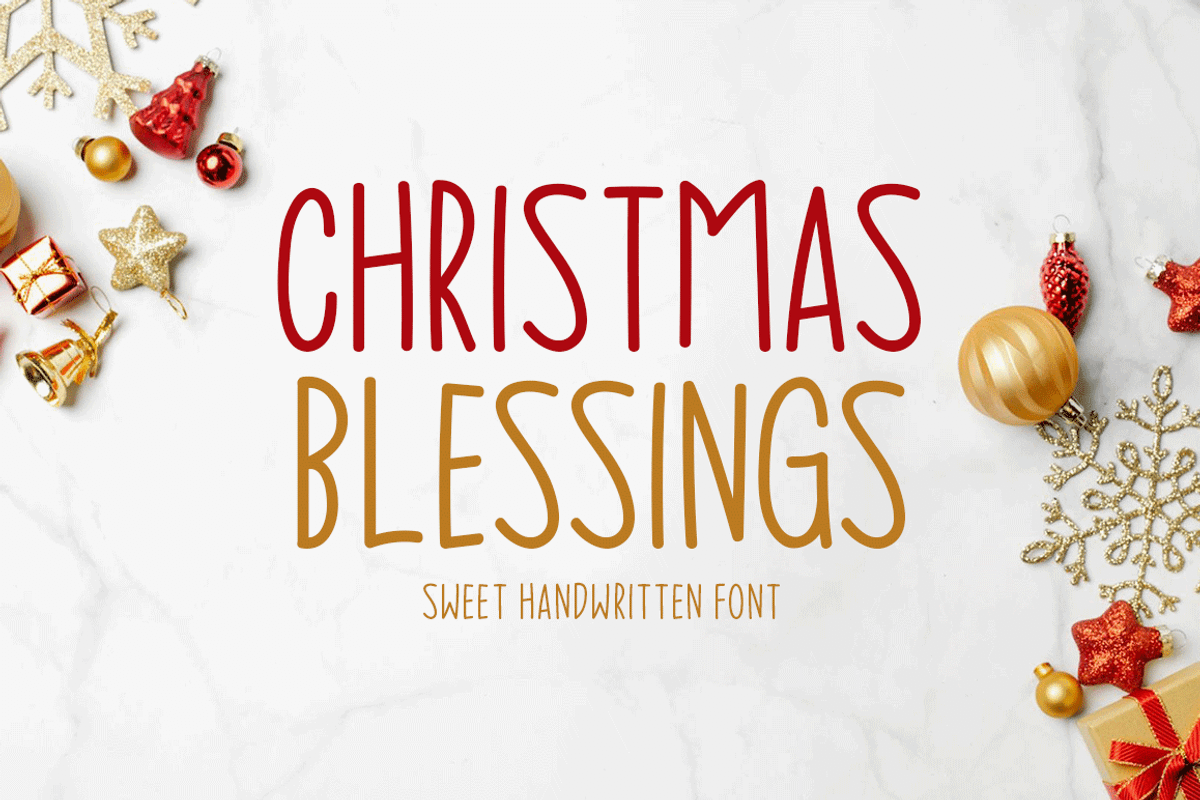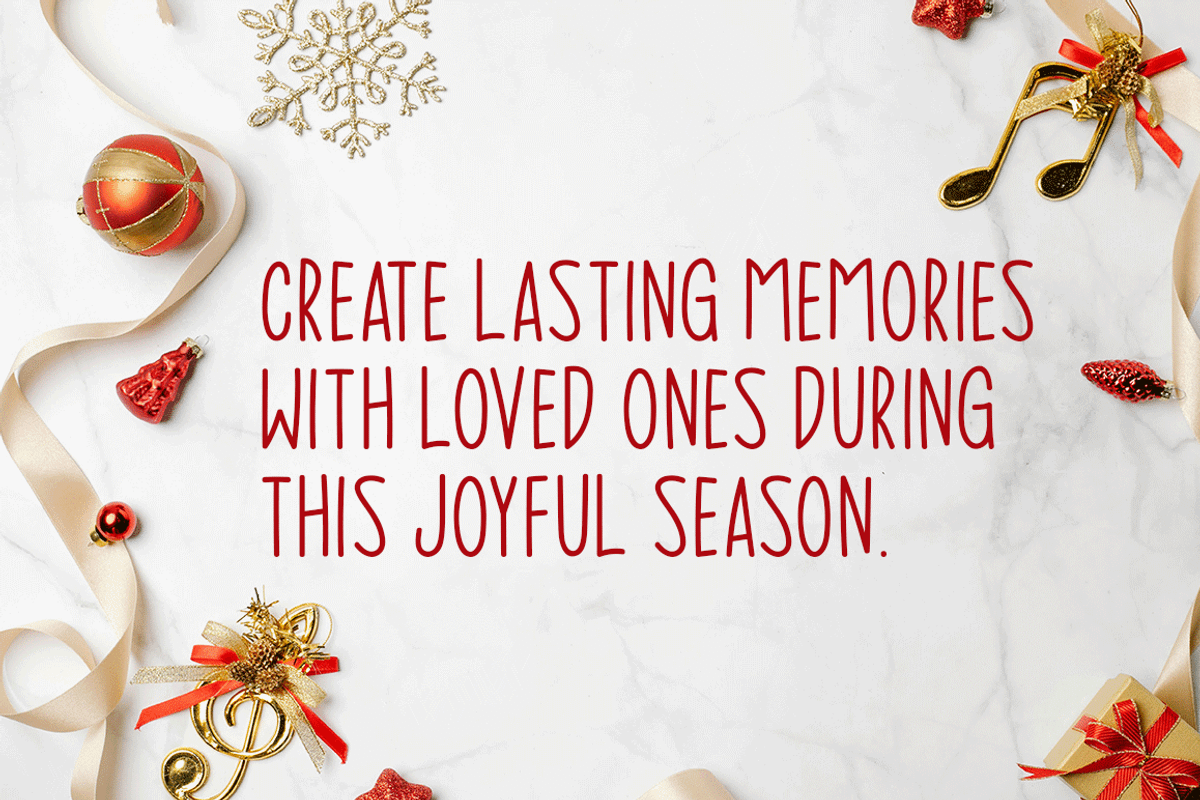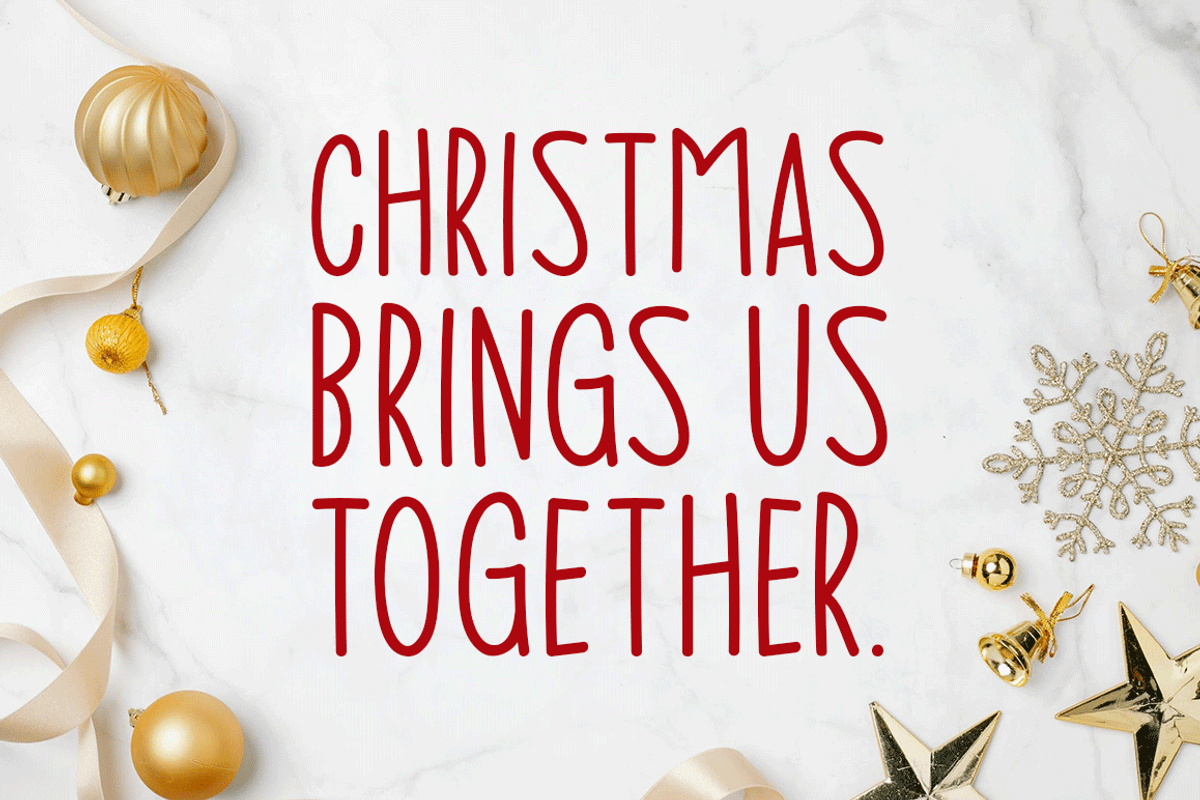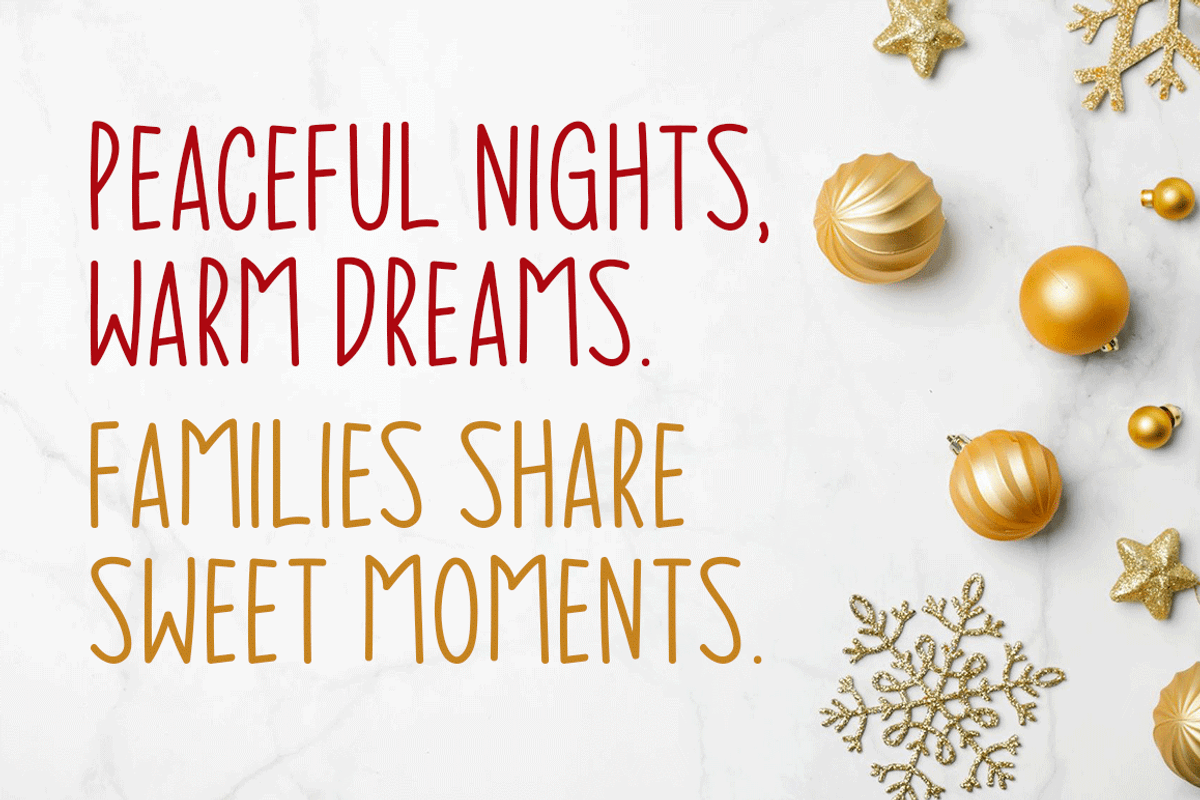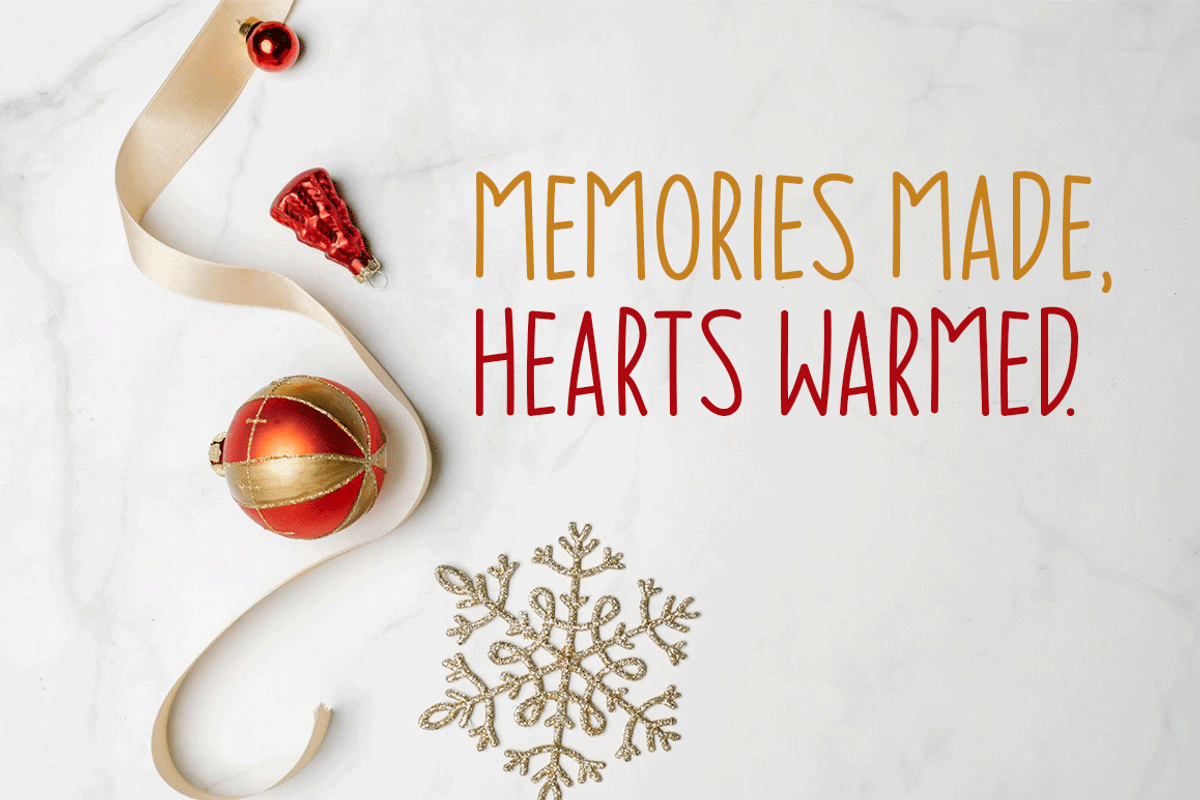
Christmas Blessings Typeface
Introducing Christmas Blessings!
Christmas Blessings is a charming handwritten font that adds a touch of warmth and joy to any design. Its elegant style is ideal for a variety of applications, including stationery, logos, t-shirts, print materials, website headers, photo frames, flyers, music covers, posters, image sliders, and much more. This versatile font beautifully captures the spirit of the holiday season.
Includes a range of multilingual support